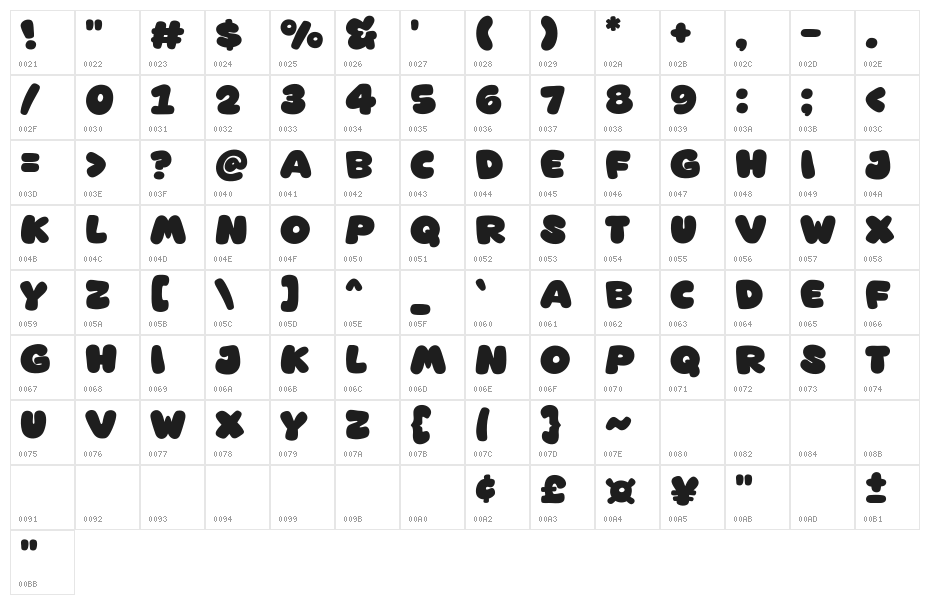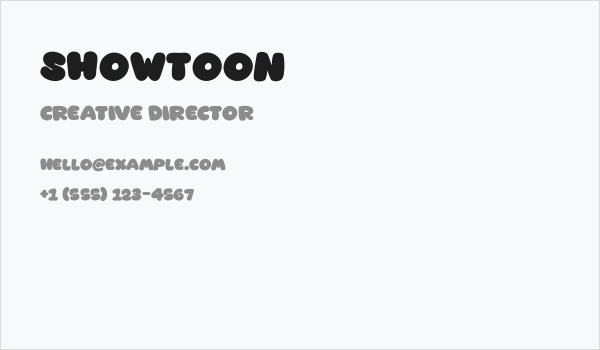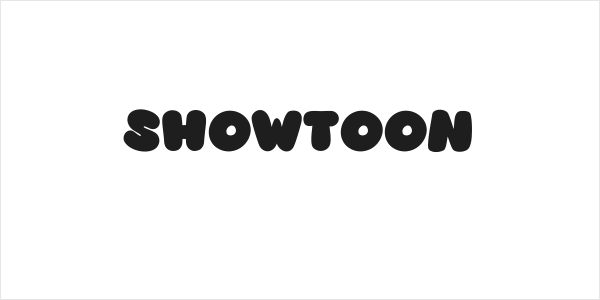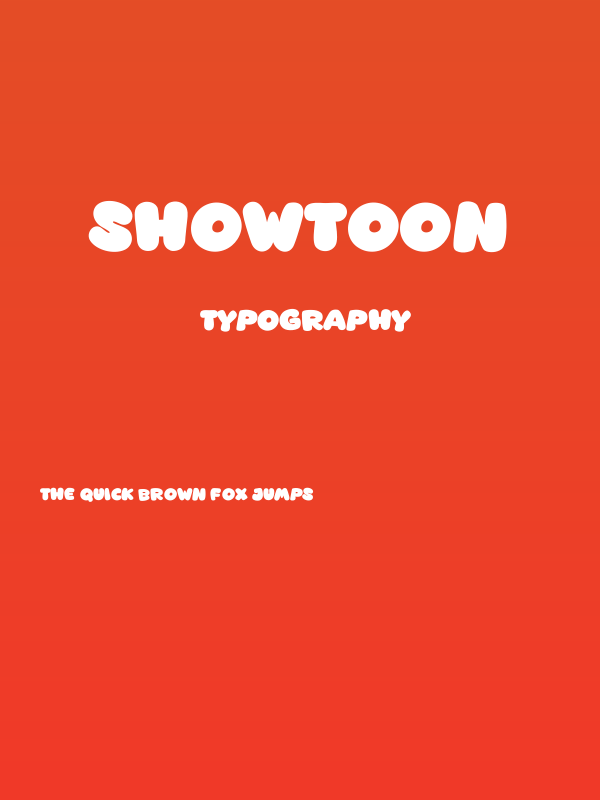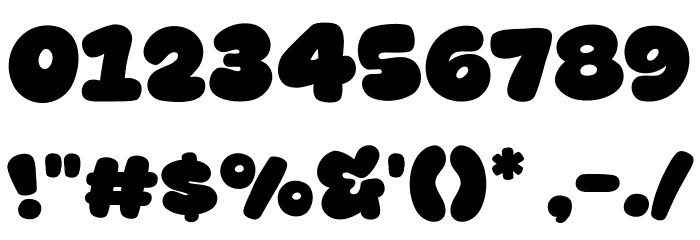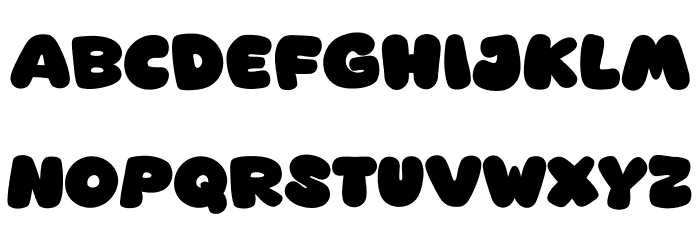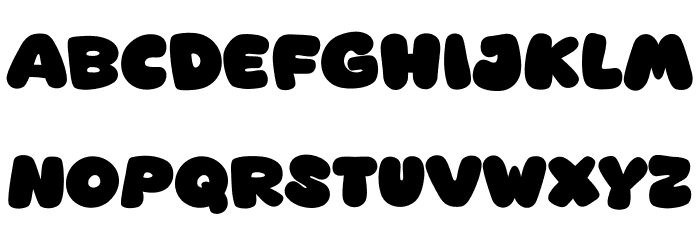
Showtoon Font
Showtoon Description
This playful and bold font features rounded, bubbly characters that exude a sense of fun and whimsy. The thick, uniform strokes create a strong visual impact, making it ideal for attention-grabbing designs. Each letter and number is crafted with a smooth, flowing style, enhancing its friendly and approachable appearance. The font's unique character shapes are reminiscent of cartoon lettering, adding a touch of nostalgia and charm. Its boldness ensures readability while maintaining a distinctive personality.
| Overall Style | Playful, Cartoonish |
| Proposed Projects | Ideal for children's books, comic strips, playful branding, and party invitations. |